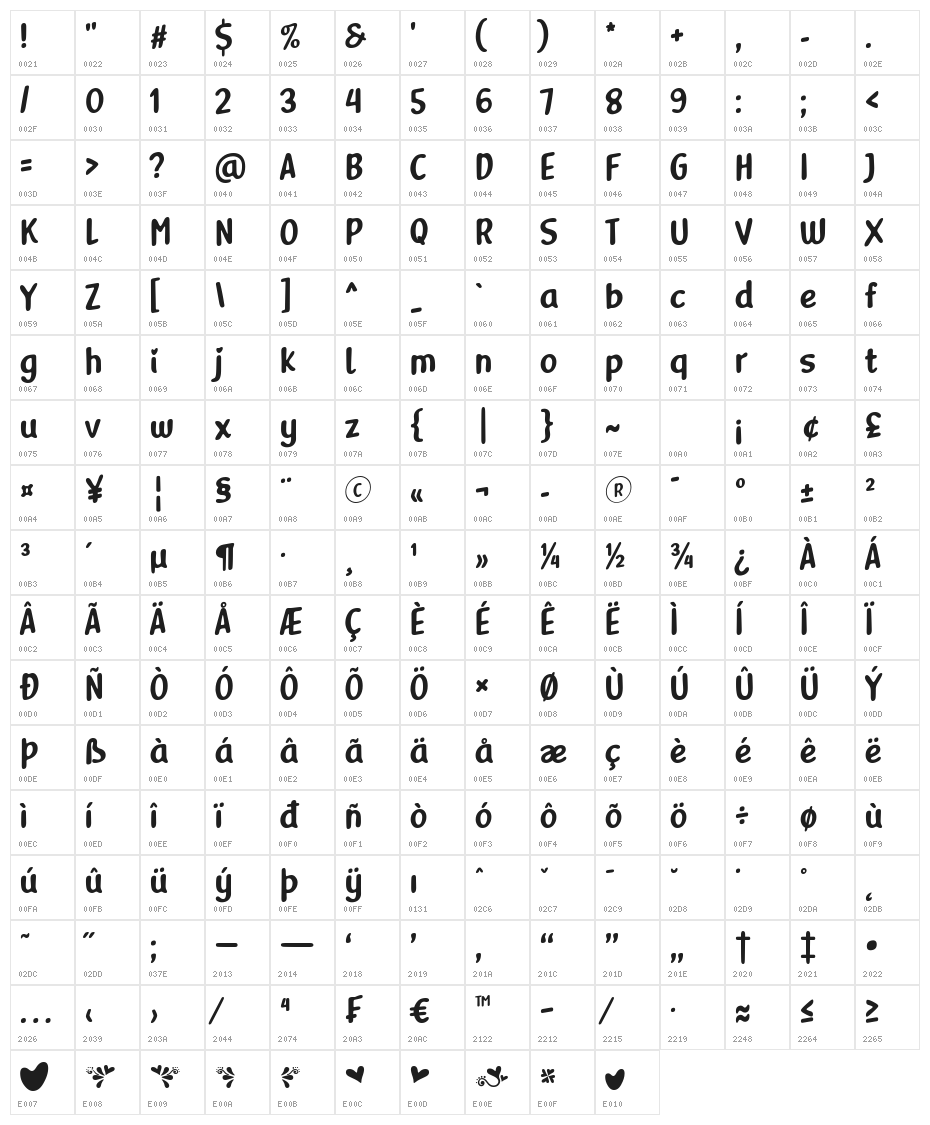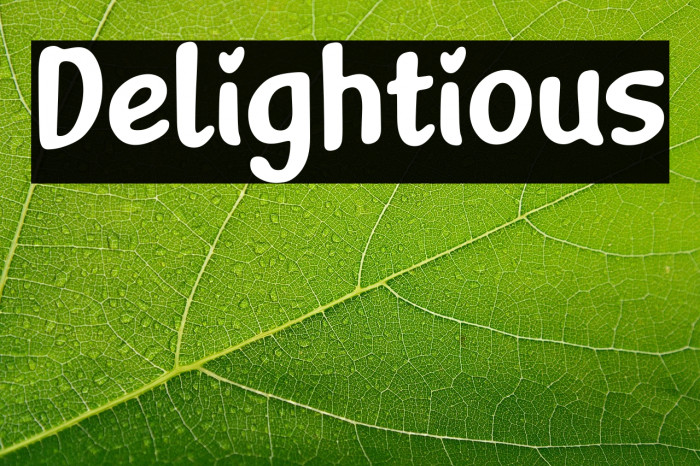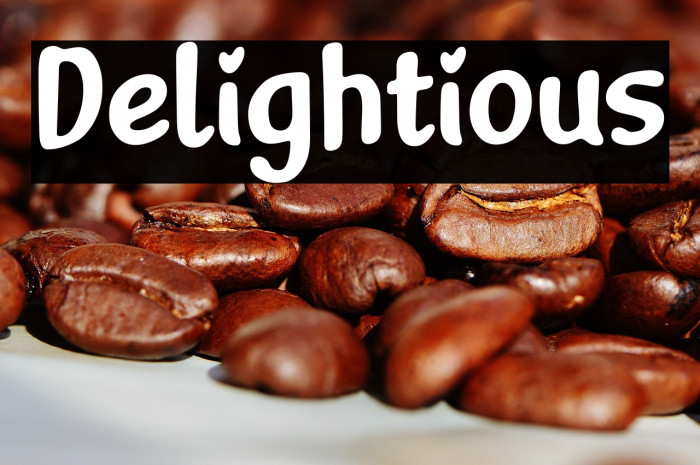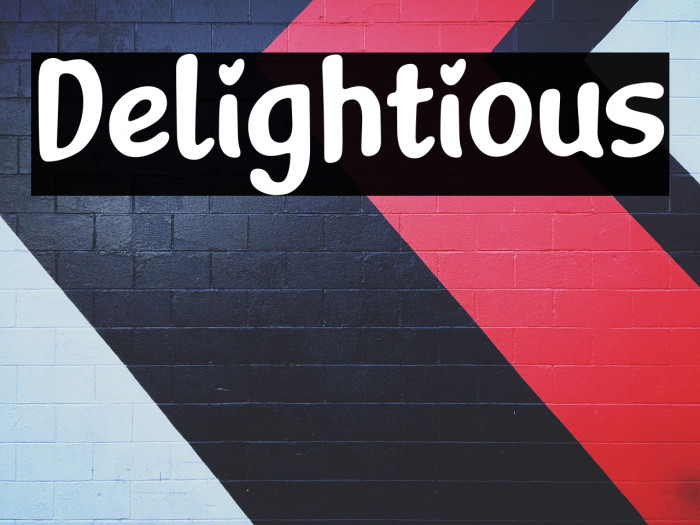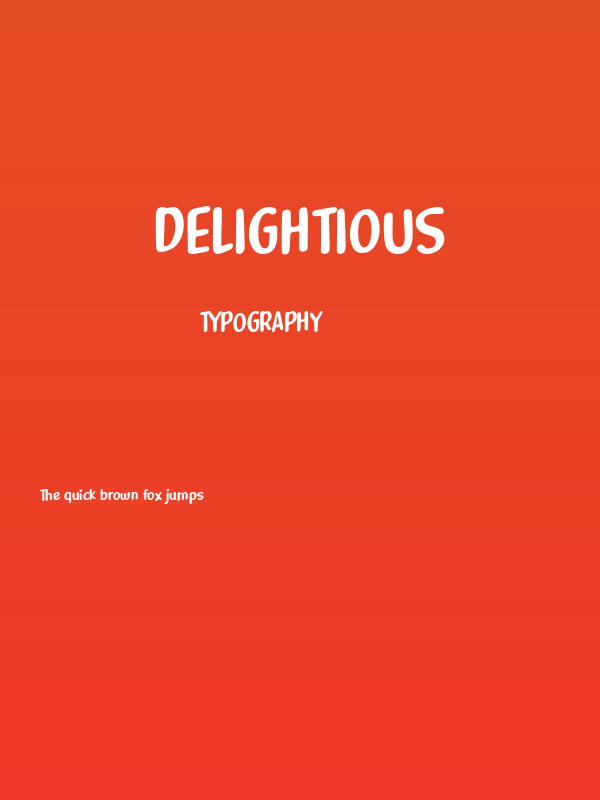
Delightious Font
Delightious Description
This playful and rounded font exudes a sense of fun and friendliness. Its bold, smooth curves and slightly irregular shapes give it a hand-drawn, whimsical appearance. The letters are well-spaced, enhancing readability while maintaining a casual, informal vibe. The font's thick strokes and consistent weight make it suitable for capturing attention without overwhelming the viewer. Its unique character is evident in the way each letter seems to have its own personality, yet they all work harmoniously together. This font is ideal for projects that aim to convey warmth, creativity, and approachability.
| Proposed Projects | Ideal for children's books, playful branding, greeting cards, and creative posters. |